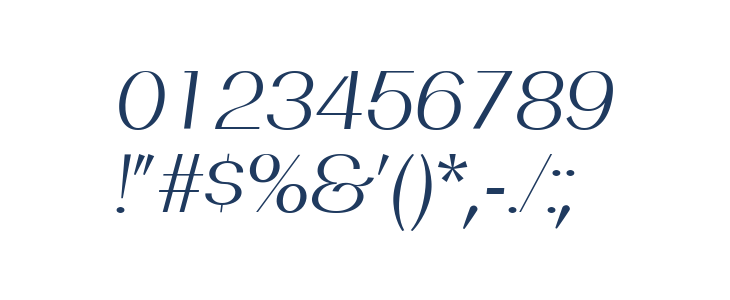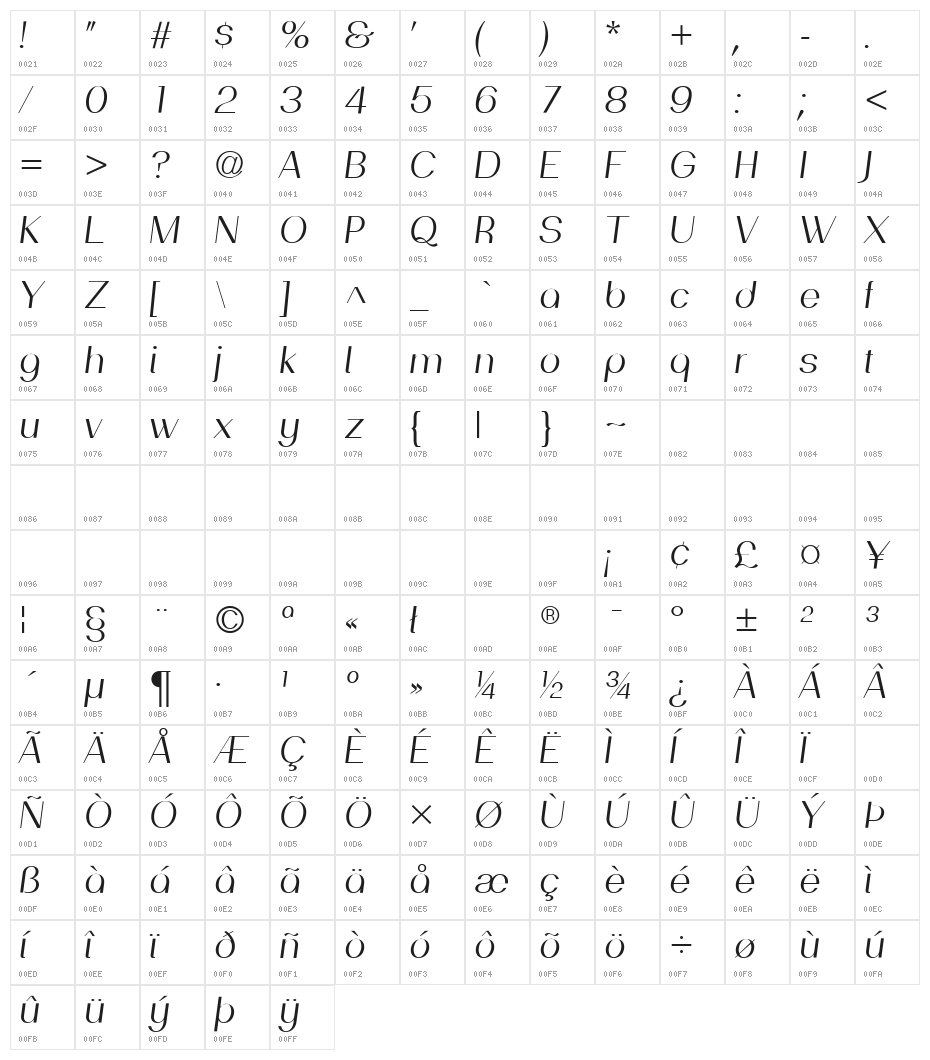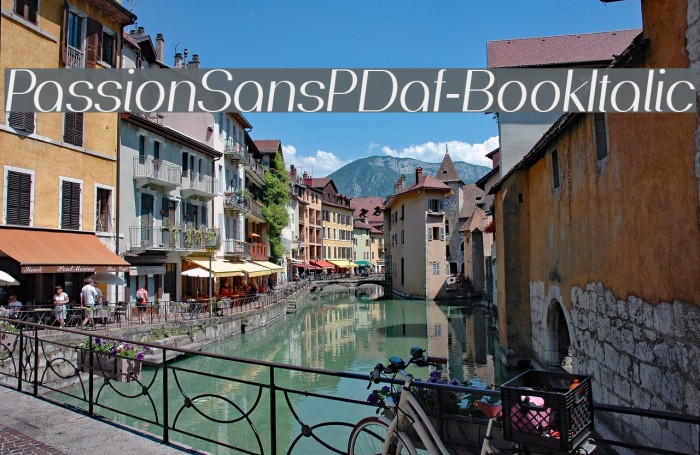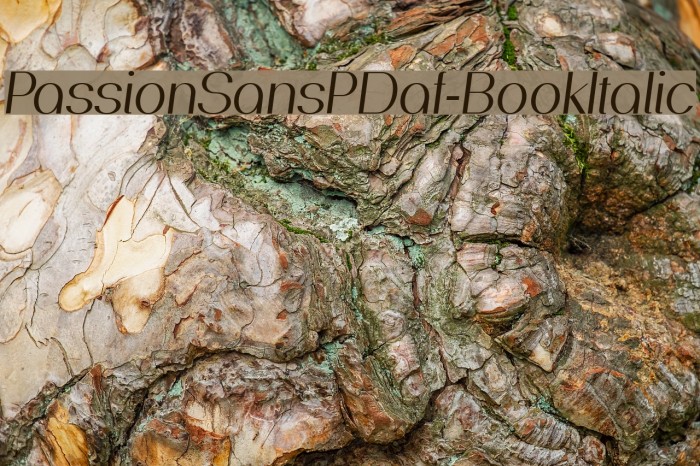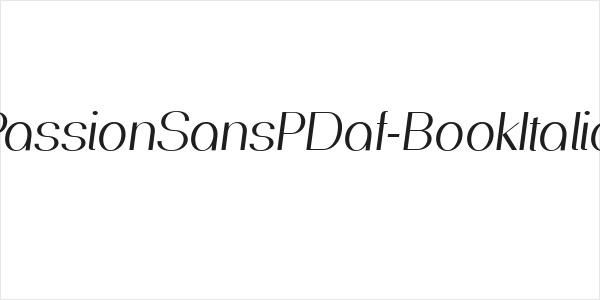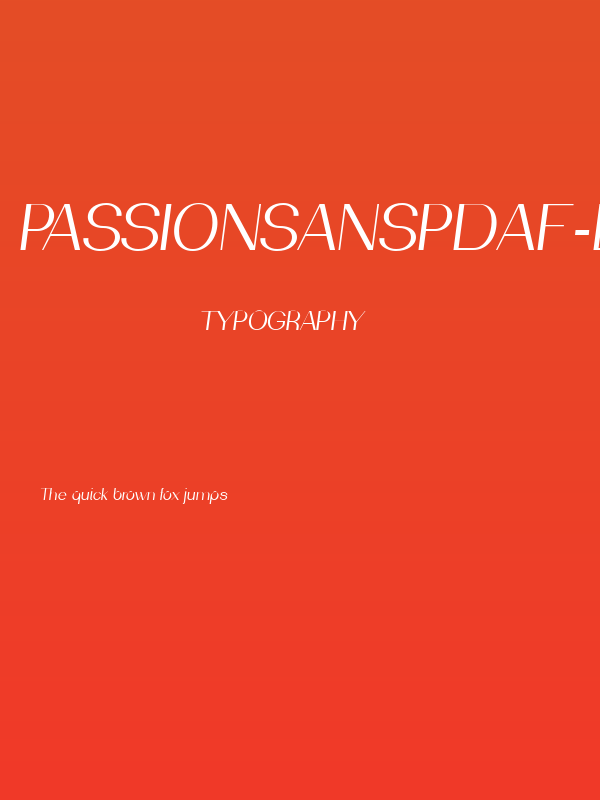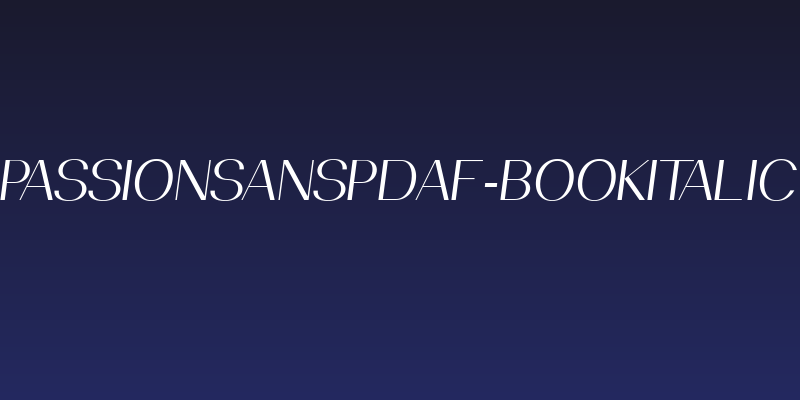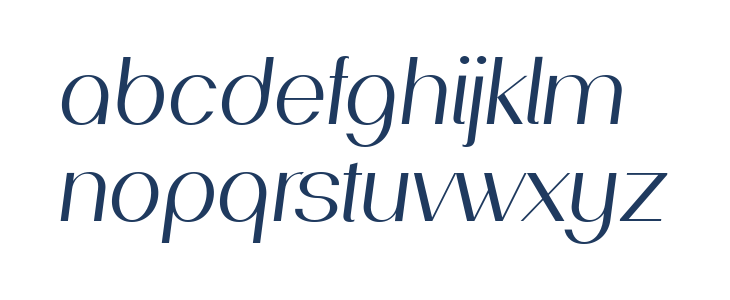
PassionSansPDaf-BookItalic Font
PassionSansPDaf-BookItalic Description
This font features a sleek and modern design with a slight italic slant, giving it a dynamic and elegant appearance. The characters are sans-serif, contributing to a clean and contemporary look. The strokes are consistent in weight, providing a uniform appearance across all characters. The uppercase and lowercase letters are well-proportioned, and the numerals are clear and easy to read. Special characters are distinct and maintain the overall style of the font. The font's design is suitable for a variety of applications, offering versatility and readability.
| Proposed Projects | Ideal for branding, advertising, digital media, and editorial design projects. |